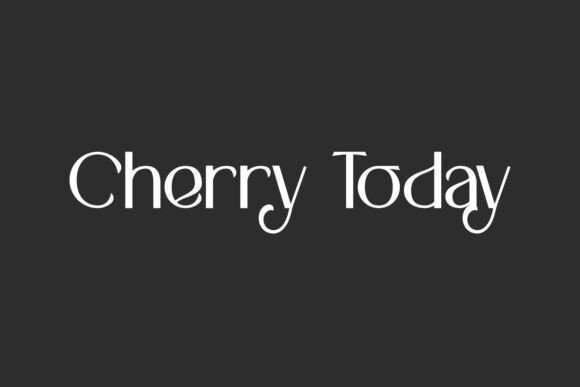
Introducing Cherry Today Font: The Ultimate Modern Sans Display Font
In the world of typography, fonts play a crucial role in making or breaking a design. A well-chosen font can elevate your design, making it more visually appealing and effective in communicating your message. If you’re looking for a modern, stylish, and versatile sans display font, look no further than Cherry Today Font. In this article, we’ll explore the features and benefits of Cherry Today Font, and how it can be used to enhance your designs.
What is Cherry Today Font?
Cherry Today Font is a beautiful, modern sans display font that boasts a unique and stylish shape. Its clean lines, elegant curves, and precise craftsmanship make it a standout in the world of typography. This font is designed to be timeless, ensuring that your designs will never go out of style. Whether you’re working on a brochure, business card, custom design, or any other project, Cherry Today Font is the perfect choice.
Key Features of Cherry Today Font
- Modern and Stylish: Cherry Today Font features a sleek and contemporary design that will add a touch of sophistication to your projects.
- Versatile: This font is perfect for a wide range of designs, including brochures, business cards, custom designs, covers, gift boxes, invitations, labels, posters, product packaging, quotes, screen printing, stationery, websites, and more.
- Timeless: The font’s classic shape ensures that your designs will remain stylish and relevant for years to come.
- Easy to Read: Cherry Today Font is designed to be highly legible, making it perfect for both digital and print applications.
Benefits of Using Cherry Today Font
Using Cherry Today Font in your designs offers numerous benefits. Here are just a few:
- Enhanced Visual Appeal: The font’s modern and stylish design will instantly elevate your project’s visual appeal.
- Improved Communication: The font’s clarity and legibility ensure that your message is communicated effectively.
- Flexibility: Cherry Today Font can be used in a wide range of designs, making it a versatile addition to your font library.
- Time-Saving: With Cherry Today Font, you can create professional-looking designs quickly and easily.
How to Use Cherry Today Font
Using Cherry Today Font is easy. Here are some tips to get you started:
- Pair it with Other Fonts: Cherry Today Font pairs well with other fonts, making it easy to create visually appealing combinations.
- Experiment with Sizes and Colors: The font’s versatility allows you to experiment with different sizes and colors to create the perfect look for your design.
- Use it for Headings and Titles: Cherry Today Font is perfect for headings and titles, adding a touch of style and sophistication to your designs.
Design Ideas Using Cherry Today Font
Cherry Today Font is perfect for a wide range of designs. Here are some ideas to get you started:
- Brochures: Use Cherry Today Font as the main font for your brochure, or as a accent font to add visual interest.
- Business Cards: Make a statement with Cherry Today Font on your business card, using it for your name, title, or company name.
- Posters: Create eye-catching posters with Cherry Today Font, using it for headings, titles, and body text.
- Product Packaging: Add a touch of style to your product packaging with Cherry Today Font, using it for labels, tags, and other design elements.
- Is Cherry Today Font easy to read? Yes, Cherry Today Font is designed to be highly legible, making it perfect for both digital and print applications.